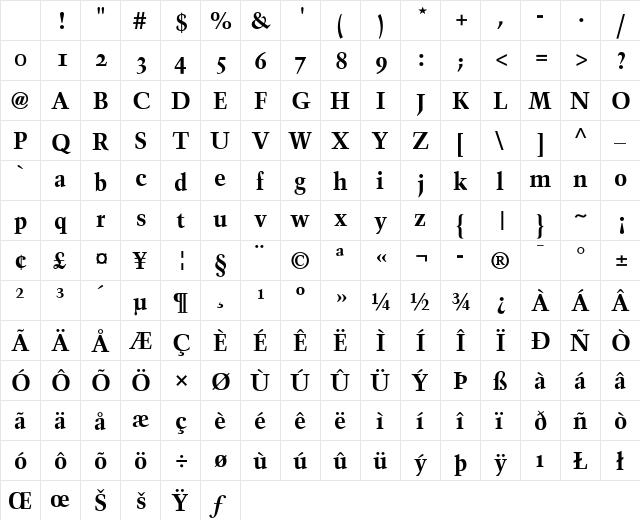
Trump Mediaeval SC is a composed and adaptable typeface that performs quietly and consistently across a wide range of design contexts. Its bold stroke weight gives it real presence on the page.